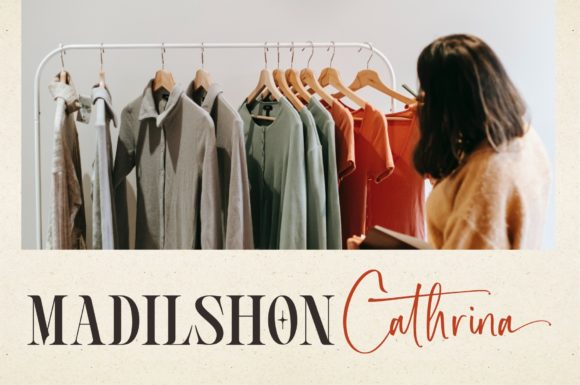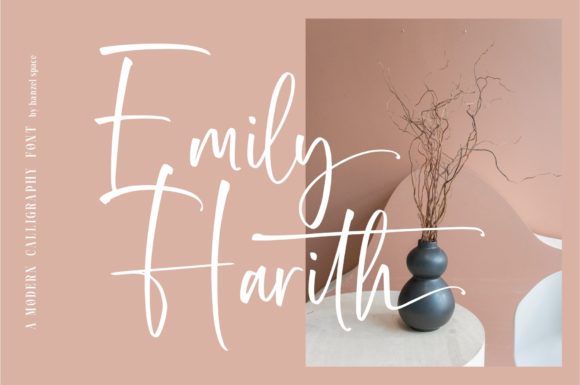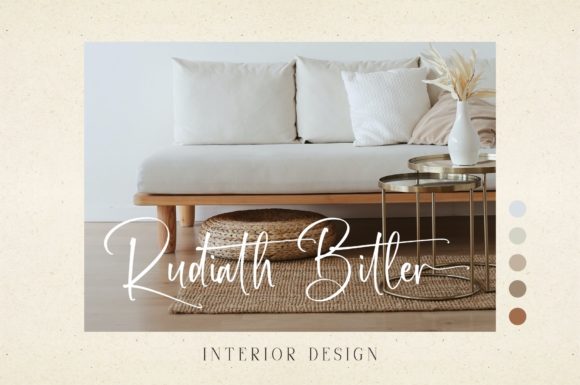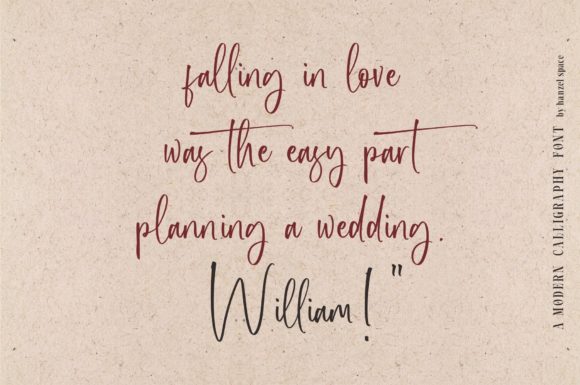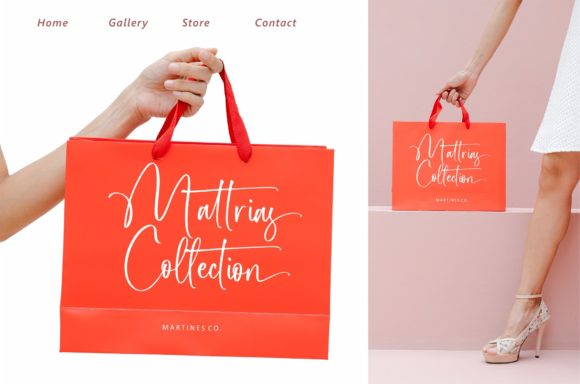
Rothary Font
About Rothary Font
Rothary is a superb handwritten font designed to elevate your work with its elegant and curvy lines. Tailored for versatility, this font is an ideal choice for a range of projects, including product packaging, branding initiatives, magazine covers, social media graphics, wedding materials, or any design where you want to express words above a background. Notably, Rothary is PUA encoded, allowing easy access to all its glyphs and swashes for convenient customization.
The elegance of Rothary is reflected in its carefully crafted, curvy lines, adding a refined and sophisticated touch to your text. The handwritten style brings a personalized and human feel to your designs, making it suitable for various creative applications.
Rothary’s adaptability is evident in its ability to seamlessly integrate into different design contexts. Whether you’re working on branding projects, social media visuals, or wedding invitations, the font enhances the visual appeal of your creations with its superb handwritten style.
The PUA encoding feature enhances user accessibility, providing designers with effortless access to a wide array of glyphs and swashes. This flexibility empowers creatives to customize their text, ensuring that Rothary becomes a versatile tool for expressing their unique creative vision.
In summary, Rothary is more than just a font; it’s a creative asset that brings elegance and personality to your projects. Let its superb handwritten style be the key element that makes your work stand out in product packaging, branding, magazines, social media, weddings, or any other creative endeavor you embark upon.